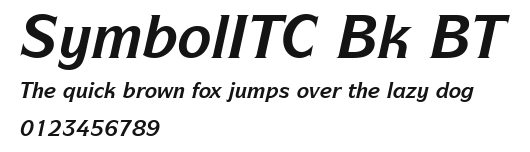
SymbolITC Bk BT.ttf is a modern, elegant sans-serif font designed for ultimate readability and visual harmony. Perfect for branding, headlines, web design, and print materials.